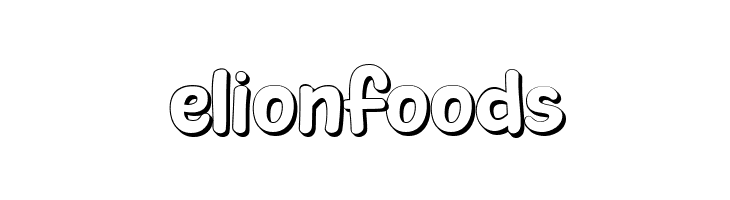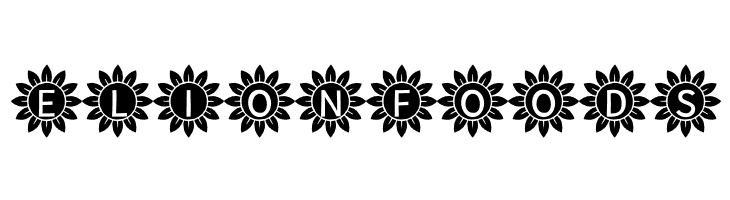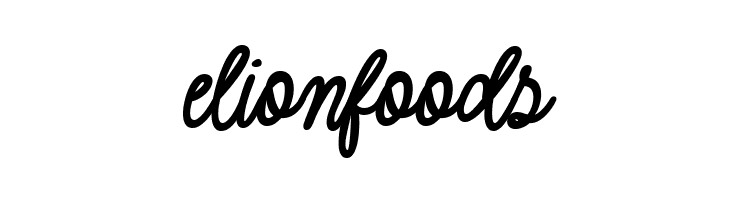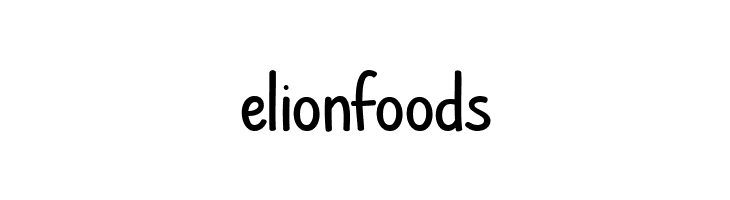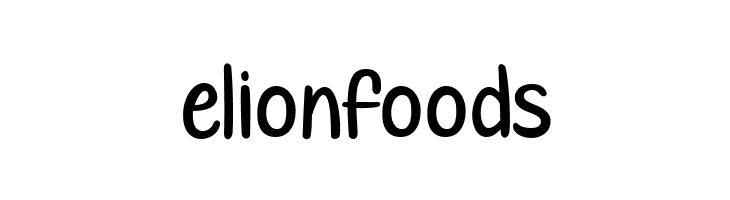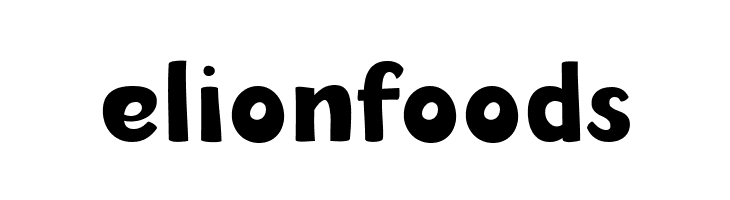
A playful, outlined font with a bubble-like, hand-drawn style.
A playful, ring-themed font with diamond accents on uppercase letters.
A decorative font with characters encased in diamond-topped rings, perfect for elegant occasions.
Decorative sunflower-themed font.
Casual handwritten script font with a smooth flow.
Casual handwritten font with a playful style.
Playful handwritten font with rounded edges.
Playful, hand-drawn style font.
Bold, playful sans-serif with hand-drawn, irregular shapes.